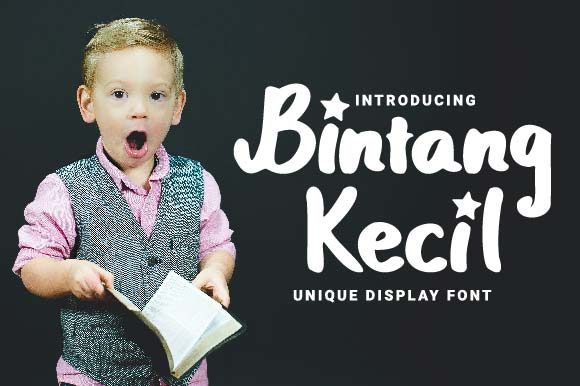
Journey into the realm of imagination, where letters dance and words come alive. Introducing Bintang Kecil, a display font that will ignite your creativity and transform your designs into captivating masterpieces.
Bintang Kecil, meaning "Little Star" in Indonesian, embodies the essence of joy and playfulness, inviting you to explore a world where typography meets art. Its unique and charming characters are meticulously crafted to evoke a sense of wonder, making it the perfect choice for logos, headings, t-shirts, letterhead, signage, labels, news, posters, badges, and any project that demands a touch of whimsy.
With its versatile nature, Bintang Kecil effortlessly adapts to a wide range of design styles, from playful and whimsical to elegant and sophisticated. Imagine the possibilities: create eye-catching logos that sparkle like stars, design captivating headings that dance off the page, or craft t-shirts with bold and playful messages that turn heads wherever you go.
Let Bintang Kecil be your creative companion, guiding you on an artistic adventure where imagination knows no bounds. Embrace the magic of typography and let your designs shine brighter than a thousand stars.
**Key Features:**
- Fun and playful display font
- Perfect for logos, headings, t-shirts, letterhead, signage, labels, news, posters, and badges
- Versatile and adaptable to a wide range of design styles
- Enchants your designs with a touch of whimsy and imagination
- Brings your creative vision to life with its unique and captivating characters